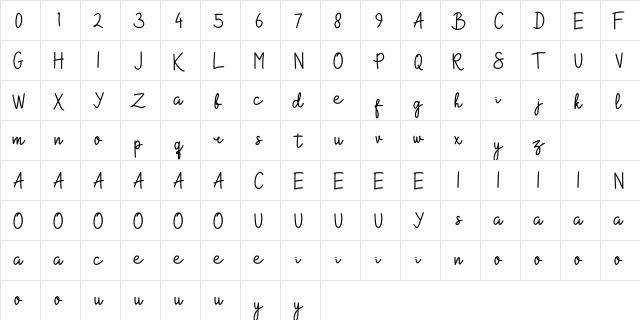
Shakila Yasmin Regular
| Foundry | Atasi Studio |
| Designer | Atasi Studio |
Design Context for Shakila Yasmin Typeface
Shakila Yasmin is a composed and adaptable typeface that performs quietly and consistently across a wide range of design contexts.